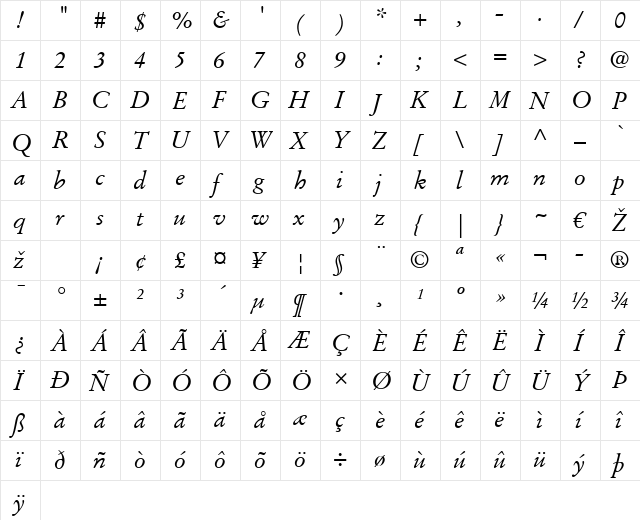
StempelGaramond LT Roman Italic
Design Context for StempelGaramond LT Roman Typeface
StempelGaramond LT Roman offers clean, dependable letterforms without strong stylistic allegiance, making it a practical choice for designers who need flexibility. The slanted form adds forward momentum and visual energy. The delicate stroke weight brings airiness and refinement to layouts.
Pro Tip: Use StempelGaramond LT Roman for emphasis, pull quotes, and subheadings where its slanted energy can add rhythm to the layout.